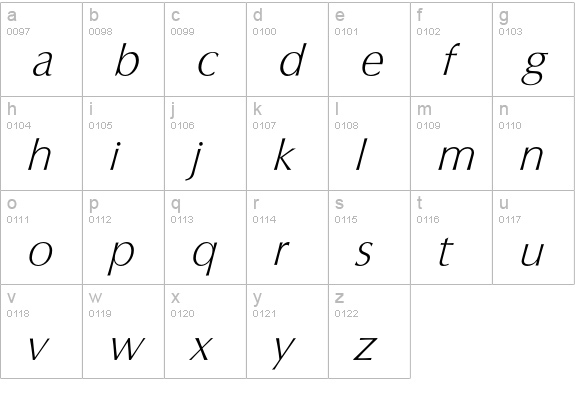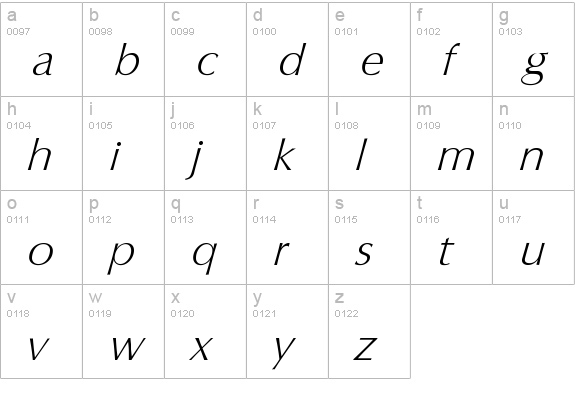
Columbia-XlightIta Font Details
Columbia-XlightIta font is a sleek and elegant typeface that exudes sophistication and modernity. Its delicate and slender letterforms convey a sense of refinement and grace, making it perfect for a wide range of design projects. The slender italic style adds a touch of sophistication and elegance to any text, while maintaining readability and clarity. What sets Columbia-XlightIta font apart is not only its stunning design, but also the fact that it is available for free download at FontsMarket.com. This means that you can easily access this beautiful typeface and use it in your projects without any cost. Whether you're working on a branding project, a website design, or any other creative endeavor, Columbia-XlightIta font is sure to elevate your work and make a lasting impression. With its free availability and timeless design, Columbia-XlightIta font is a must-have for any designer looking to add a touch of sophistication to their projects. Download it today and see for yourself the elegance and versatility that this font brings to your designs.